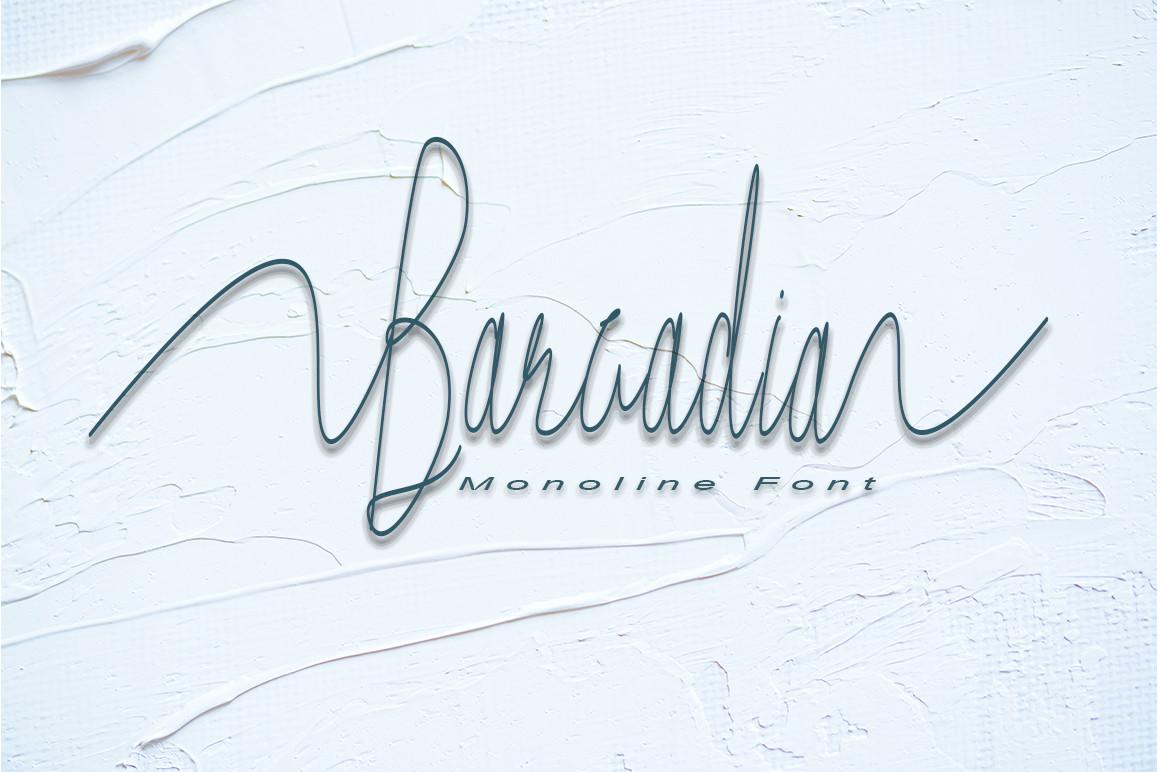
Barcadia Font Description
Barcadia is a slim and stylish script font that can create the look of any personal project! Use it for thank you notes, birthday cards, business cards, personal branding, and more! This font is PUA encoded which means you can access all of the glyphs and swashes with ease!